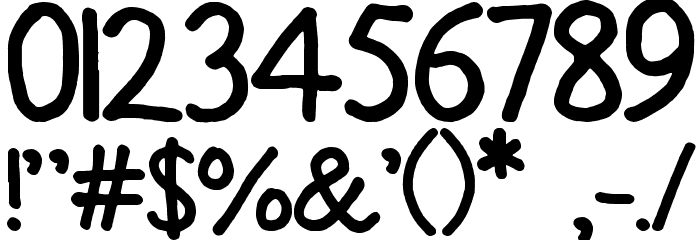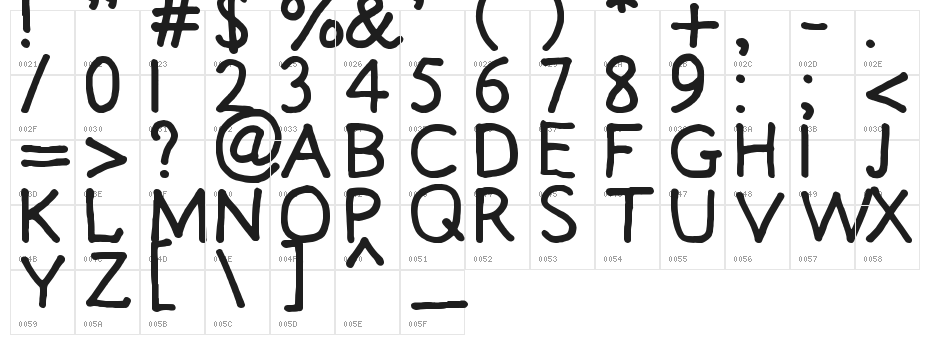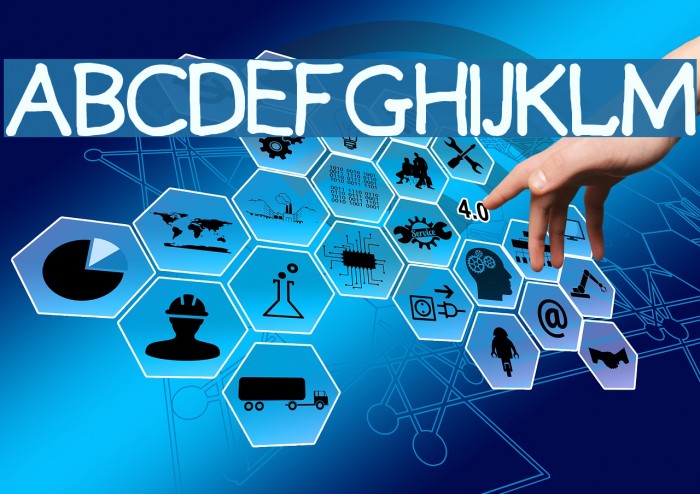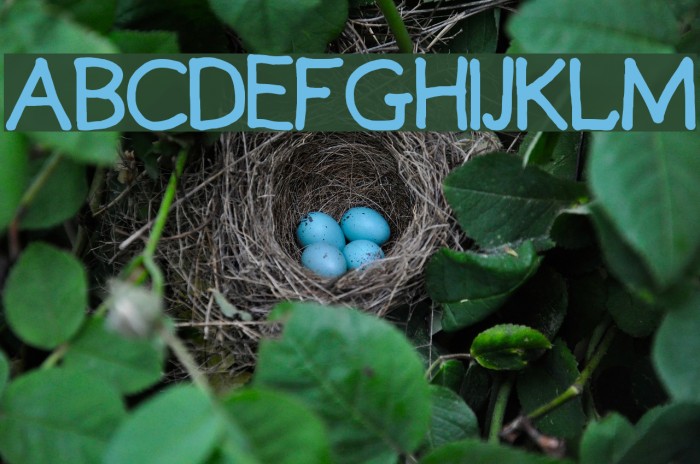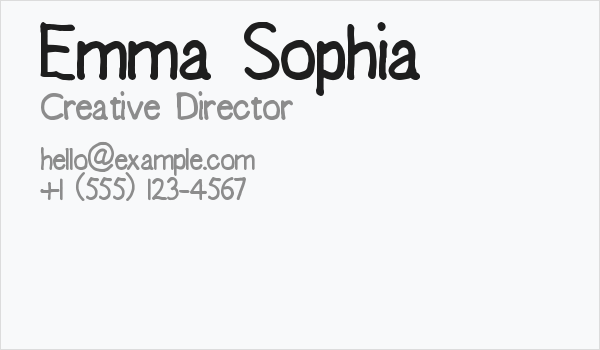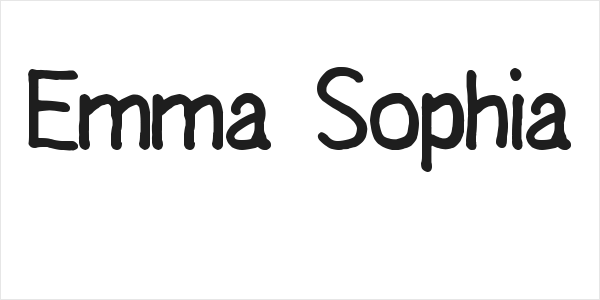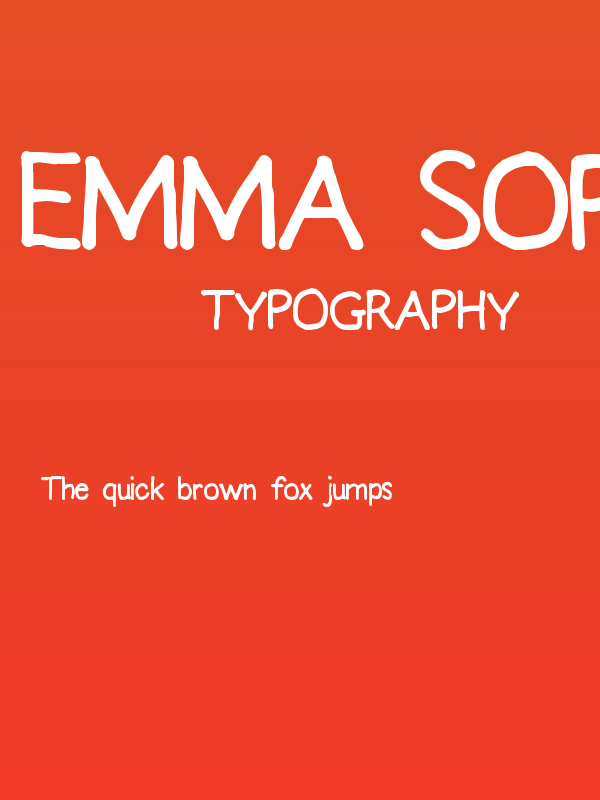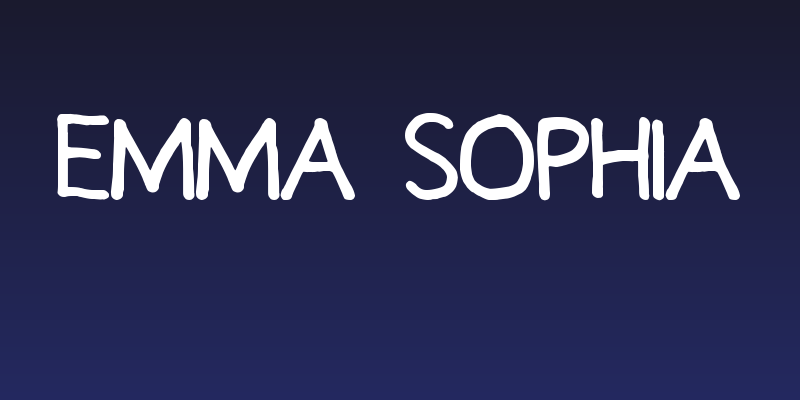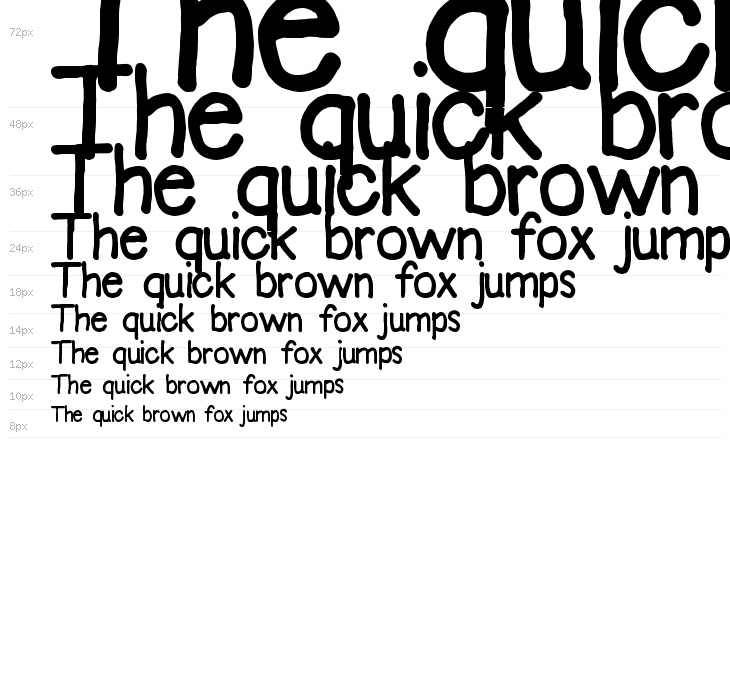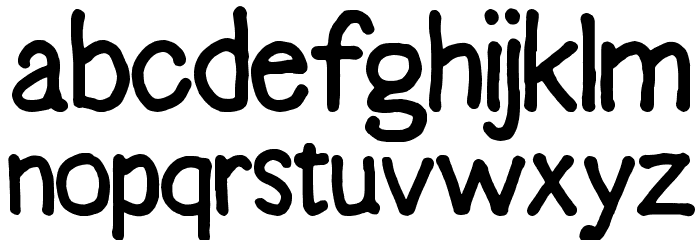
Emma Sophia Font
Emma Sophia Description
This font features a playful and casual handwritten style, characterized by its rounded and slightly irregular letterforms. The uppercase letters are bold and prominent, while the lowercase letters maintain a consistent flow with a slightly whimsical touch. Numbers and special characters follow the same playful aesthetic, making the font versatile for various informal applications. The strokes are consistent in width, providing a uniform appearance across all characters. This font exudes a friendly and approachable vibe, suitable for projects that aim to convey warmth and creativity.
| Use Case | Headlines, Informal text, Branding |
| Proposed Projects | Ideal for children's books, greeting cards, casual invitations, and playful branding. |